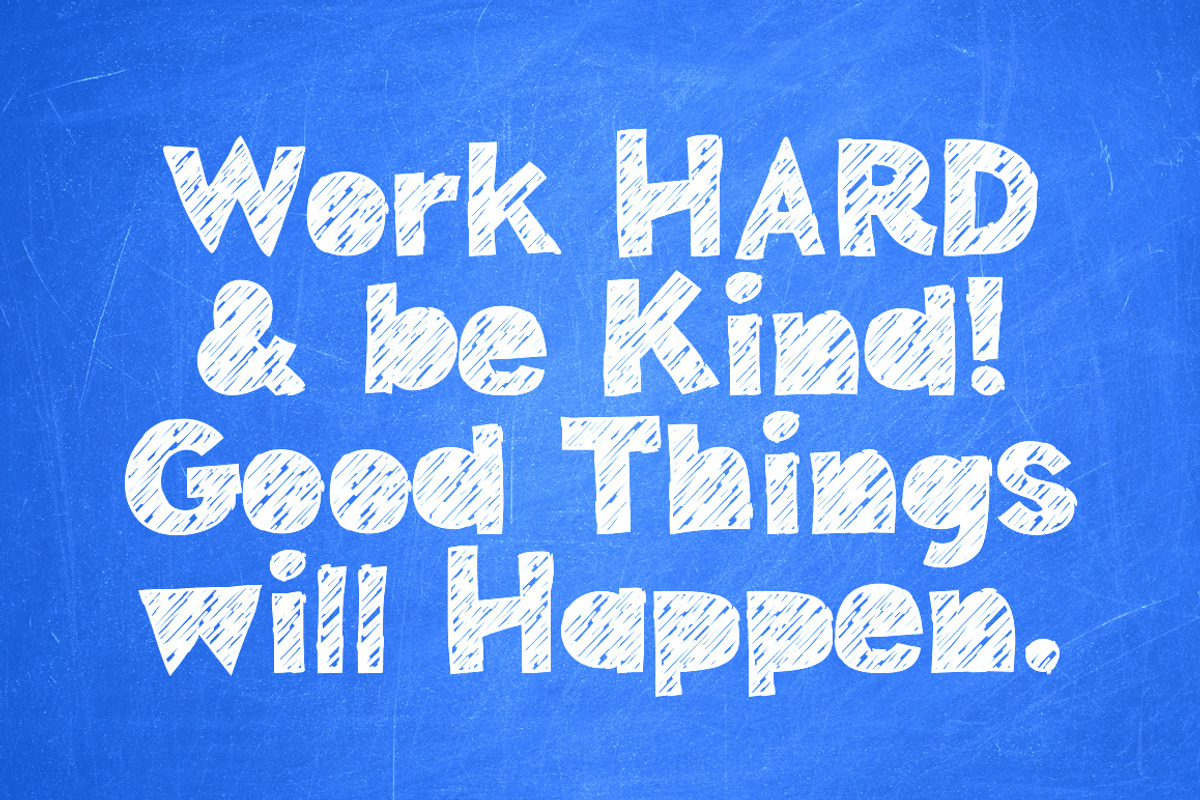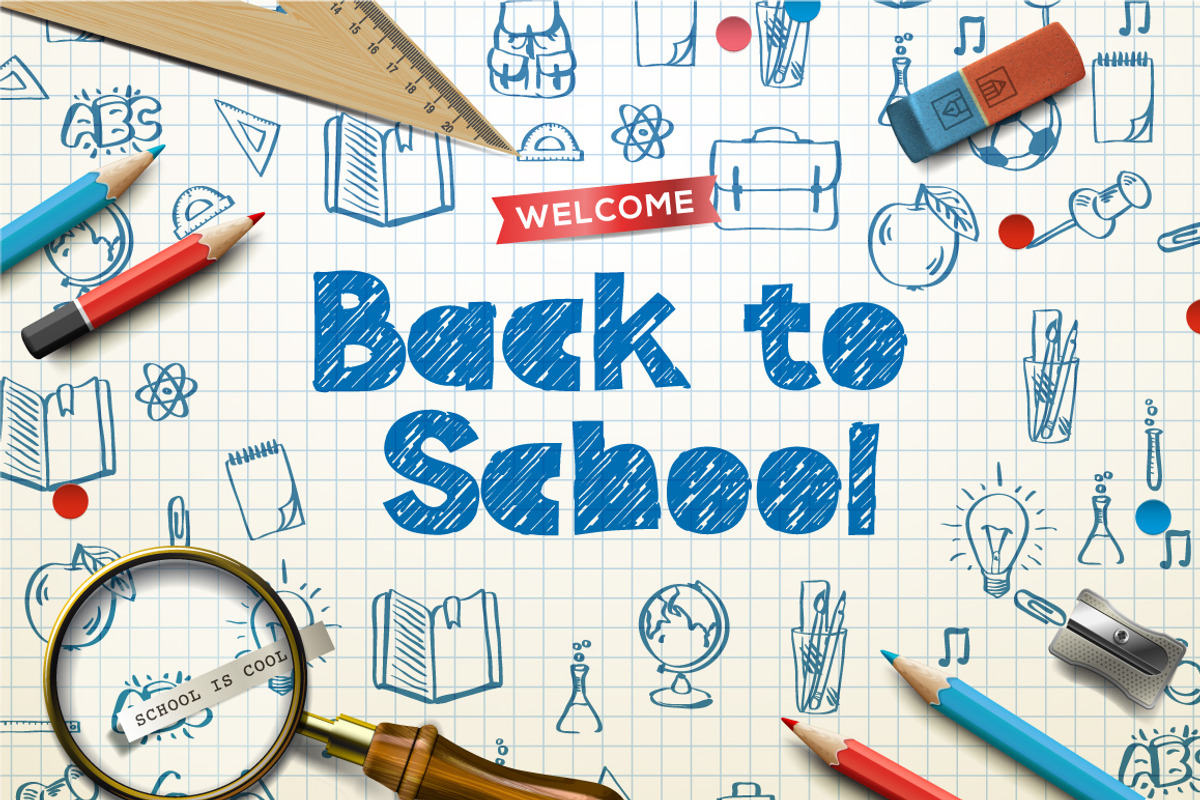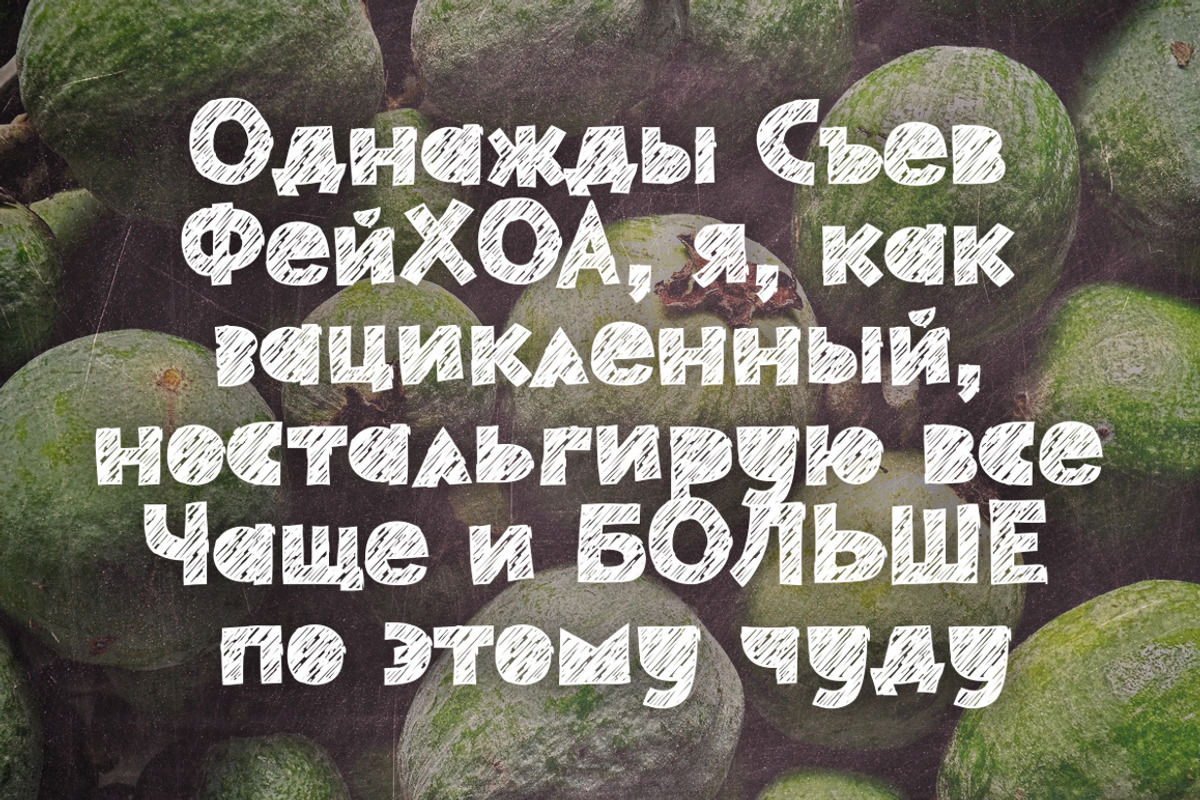
Great kids Typeface
Great kids Typeface by PREMIUMVECTOR is a font selected for branding, posters, packaging, typography.
- Latin & Cyrillic Letters
- Numbers, Punctuation and symbols
Why Great kids Typeface is worth a look
Great kids Typeface by PREMIUMVECTOR fits naturally into Branding, posters, packaging, typography.